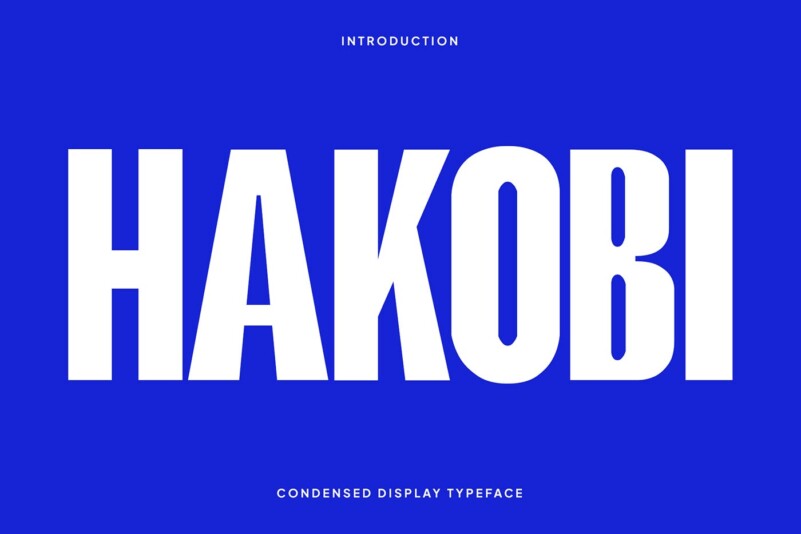
Hakobi Font is a groovy, bold typeface that transports you back to the 70s and 80s. With its powerful and compact letterforms, Hakobi commands attention and adds a sense of visual impact to any design. The strong strokes and condensed nature of Hakobi make it a perfect choice for headlines, titles, and eye-catching elements. This versatile typeface ensures readability even in limited space, making it suitable for various design applications.